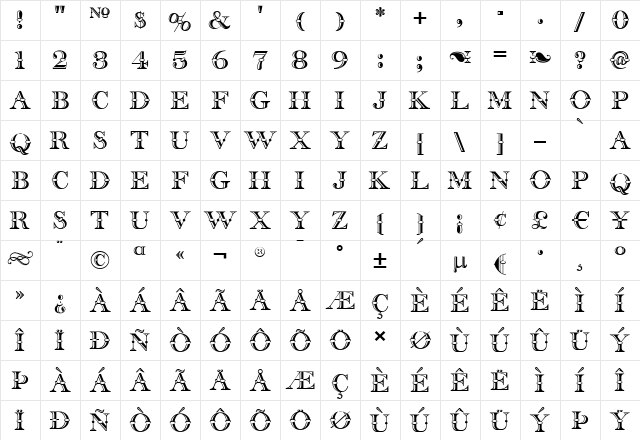
Pomfrit Dandy NF Regular
| Foundry | Nick's Fonts |
| Designer | Nick Curtis |
Design Context for Pomfrit Dandy NF Typeface
Pomfrit Dandy NF is a composed and adaptable typeface that performs quietly and consistently across a wide range of design contexts.